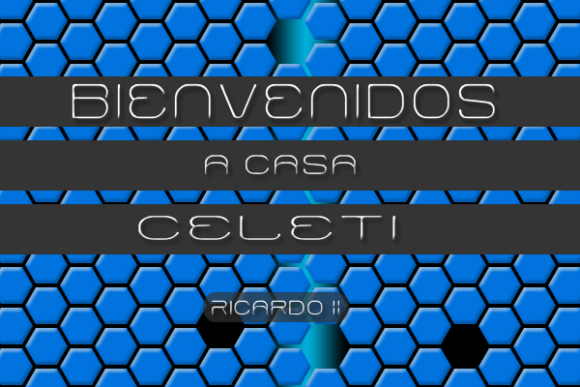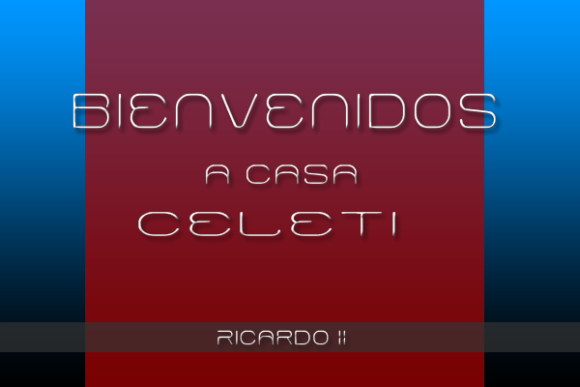
Unleashing Creativity with Celeti Font
Have you ever stared at a blank canvas, trying to bring a concept to life? The moment when everything clicks, and your creative vision begins to take shape – that’s what makes design so magical. For those who crave this feeling, we’re excited to introduce the Celeti Font, a display typeface that celebrates abstract shapes in all their eclectic beauty.
This playfully conceptual font is designed to stand out in a wide range of contexts, from digital designs to print materials. With Celeti Font, designers can add a touch of whimsy and personality to their work, making it truly outstanding. Whether you’re a seasoned pro or just starting out, this font is a valuable addition to any design toolkit, offering endless possibilities for creative expression.
Celeti Font Key Features
- Font Family: Celeti is a sans-serif font family designed for digital use.
- Size: Celeti font family includes 4 weights: Light, Regular, Medium, and Bold.
- Language Support: Celeti supports a wide range of languages, including Latin, Cyrillic, and Greek alphabets.
- Unique Characteristics: Celeti features a clean and modern design with a unique geometric structure, making it suitable for digital products, apps, and websites.
Designer Review: Celeti Font
Overall, I’d say the Celeti Font is a beautiful addition to any design project. Here are some things that I particularly like about it: ✨
- Elegant and sophisticated feel: The Celeti Font has a very refined look that instantly elevates the visual appeal of any text.
- High legibility: This font is perfect for both body text and headings, making it an excellent choice for a wide range of applications.
- Excellent for branding: The unique style and design of the Celeti Font make it an excellent choice for creating memorable brand identities.
- Limited character set: The Celeti Font is not a comprehensive character set, which may be a problem for designers working with languages that require a lot of special characters.
- Not ideal for large blocks of text: Due to its elegant, refined feel, the Celeti Font can become overwhelming when used in large quantities.
Overall, the Celeti Font is a versatile and visually appealing choice that’s perfect for adding a touch of sophistication to your designs. While it may have some limitations, I’d definitely recommend it for a wide range of applications, from branding to editorial design.
Tips for Getting the Most Out of Celeti Font
For optimal results, use Celeti font in conjunction with bold or italic styles to add emphasis and visual interest to your design. You can also use it to create a cohesive brand identity by applying it consistently across all your marketing materials.
The Celeti font is ideal for use in creative projects such as logo design, typography-based art, and branding materials. It’s also suitable for use in digital products like ebooks, magazines, and online courses.